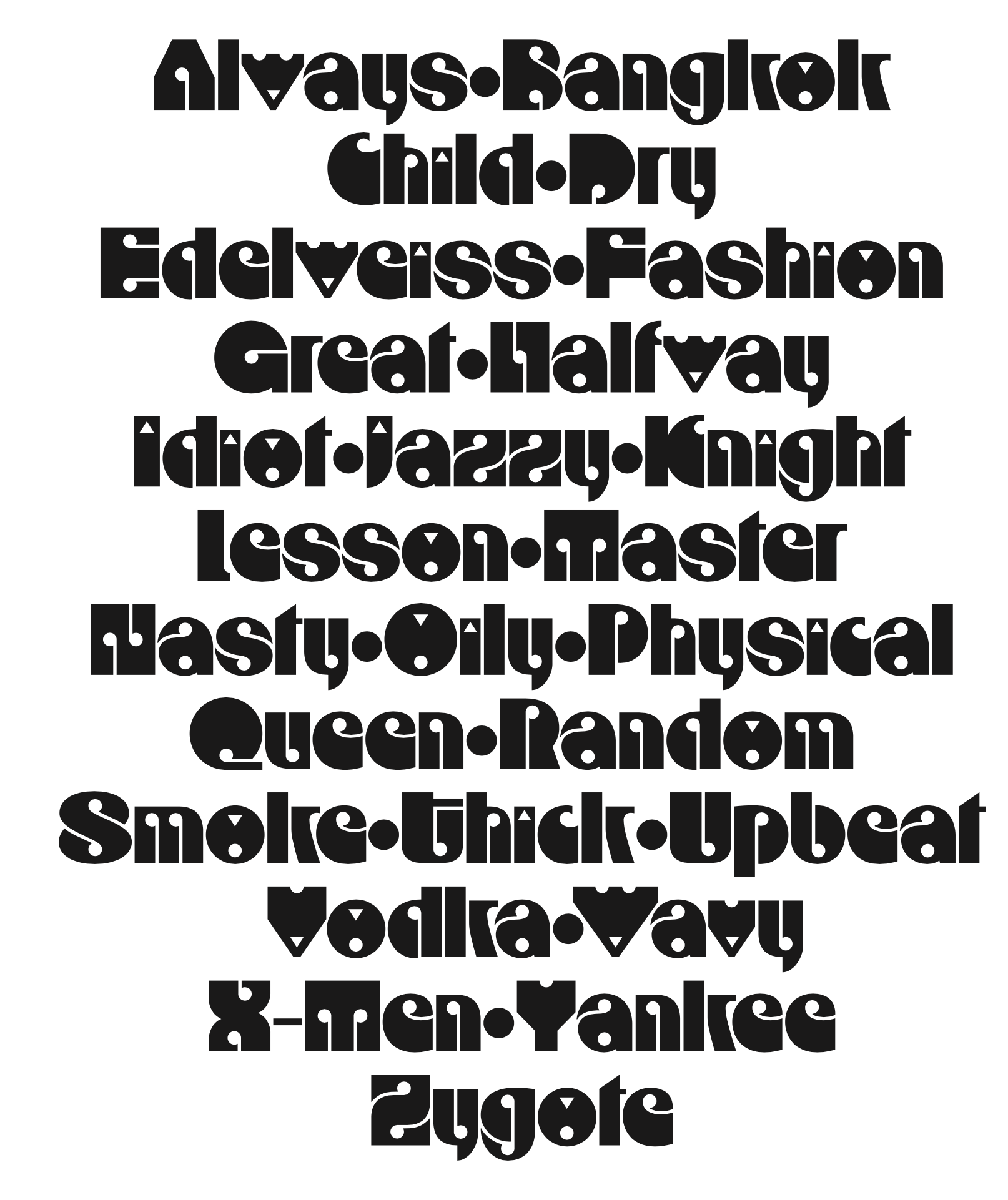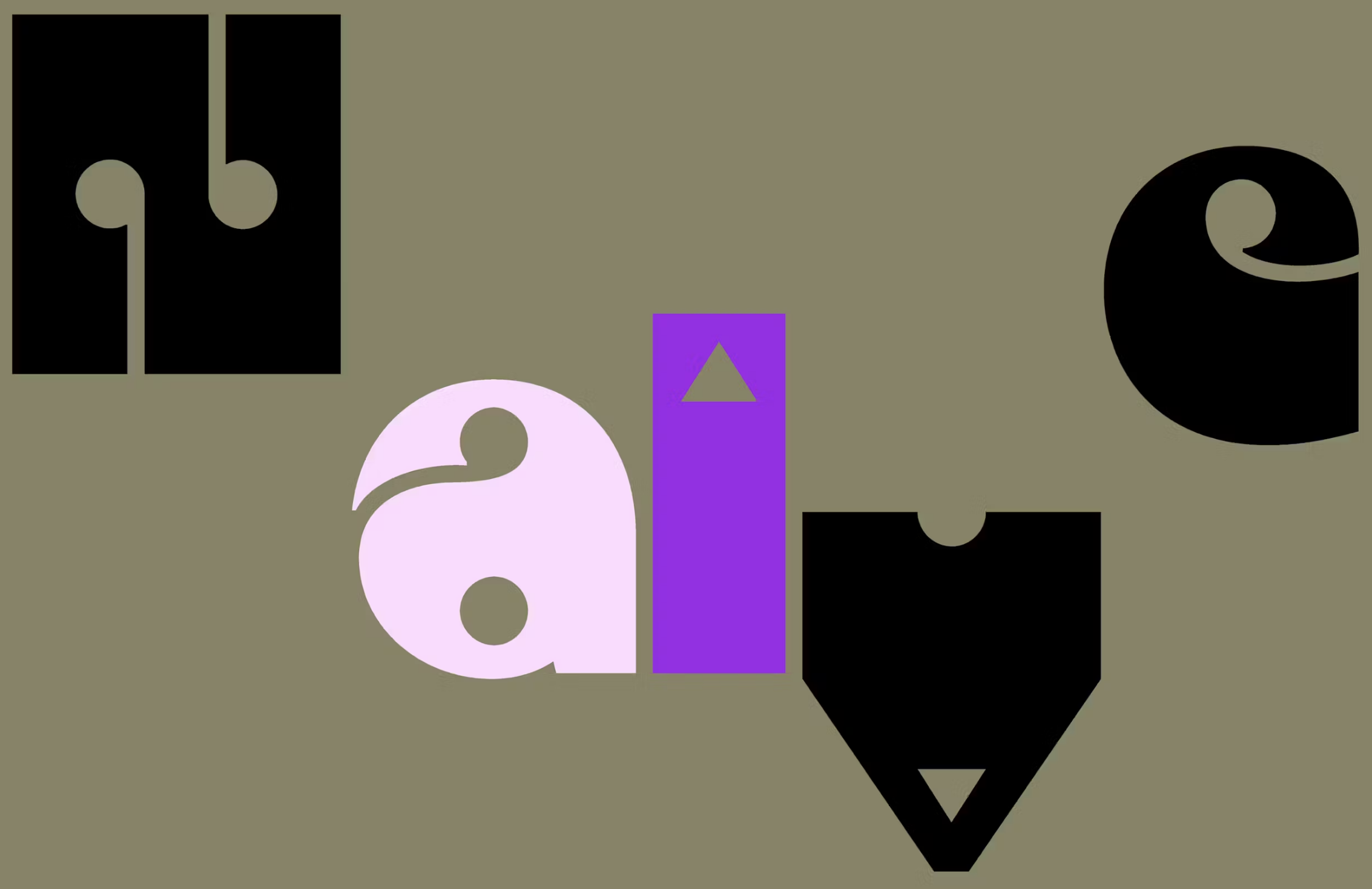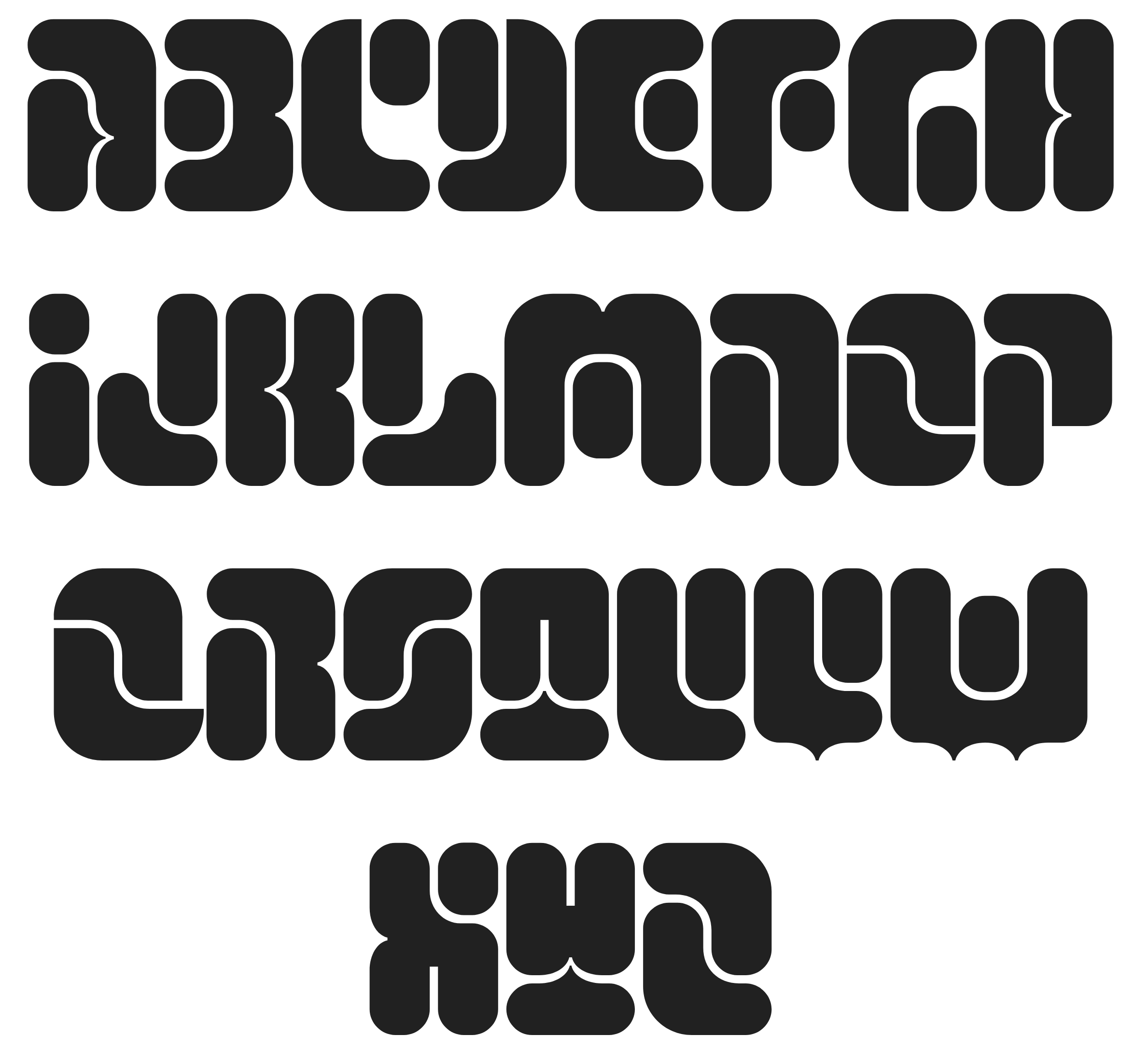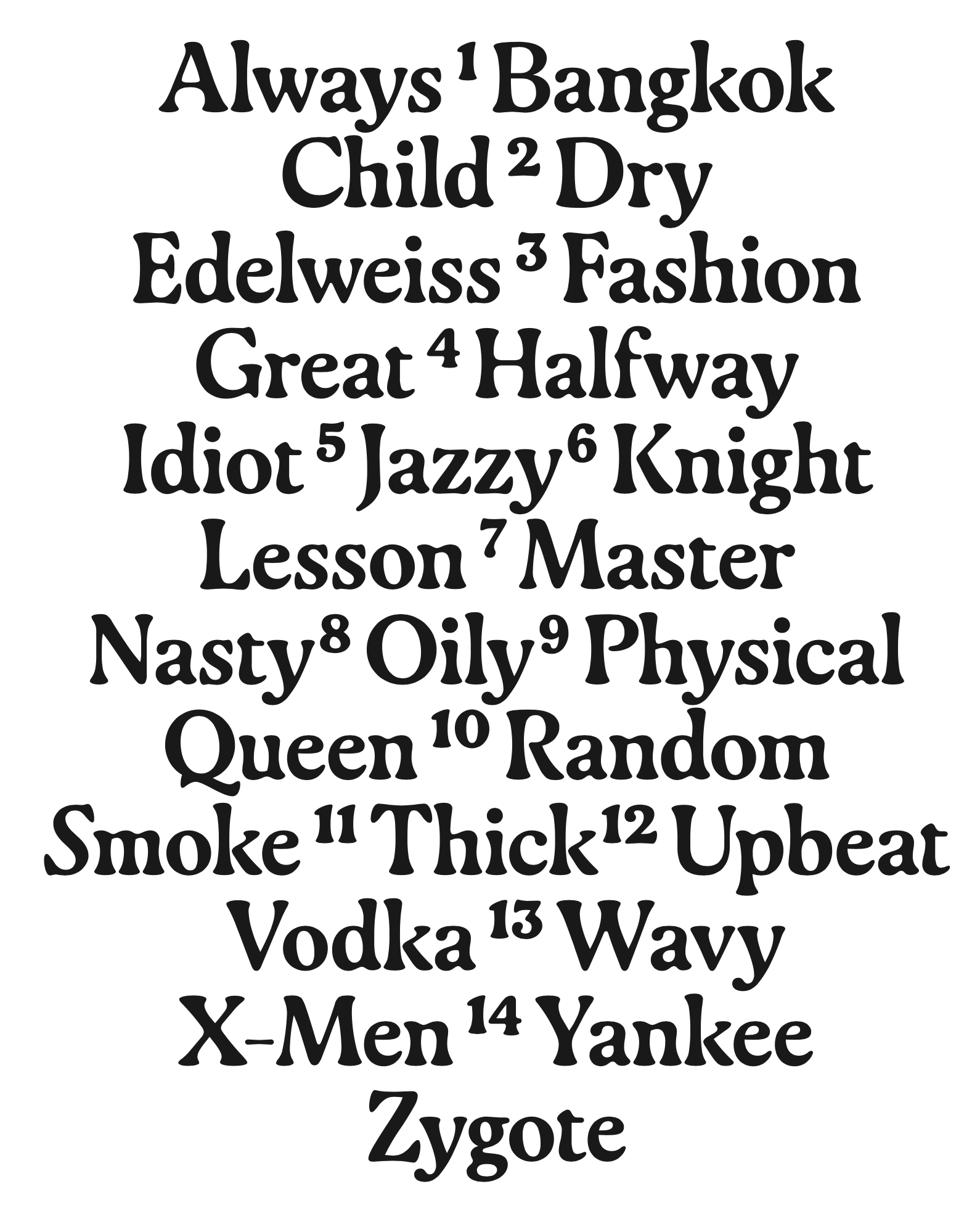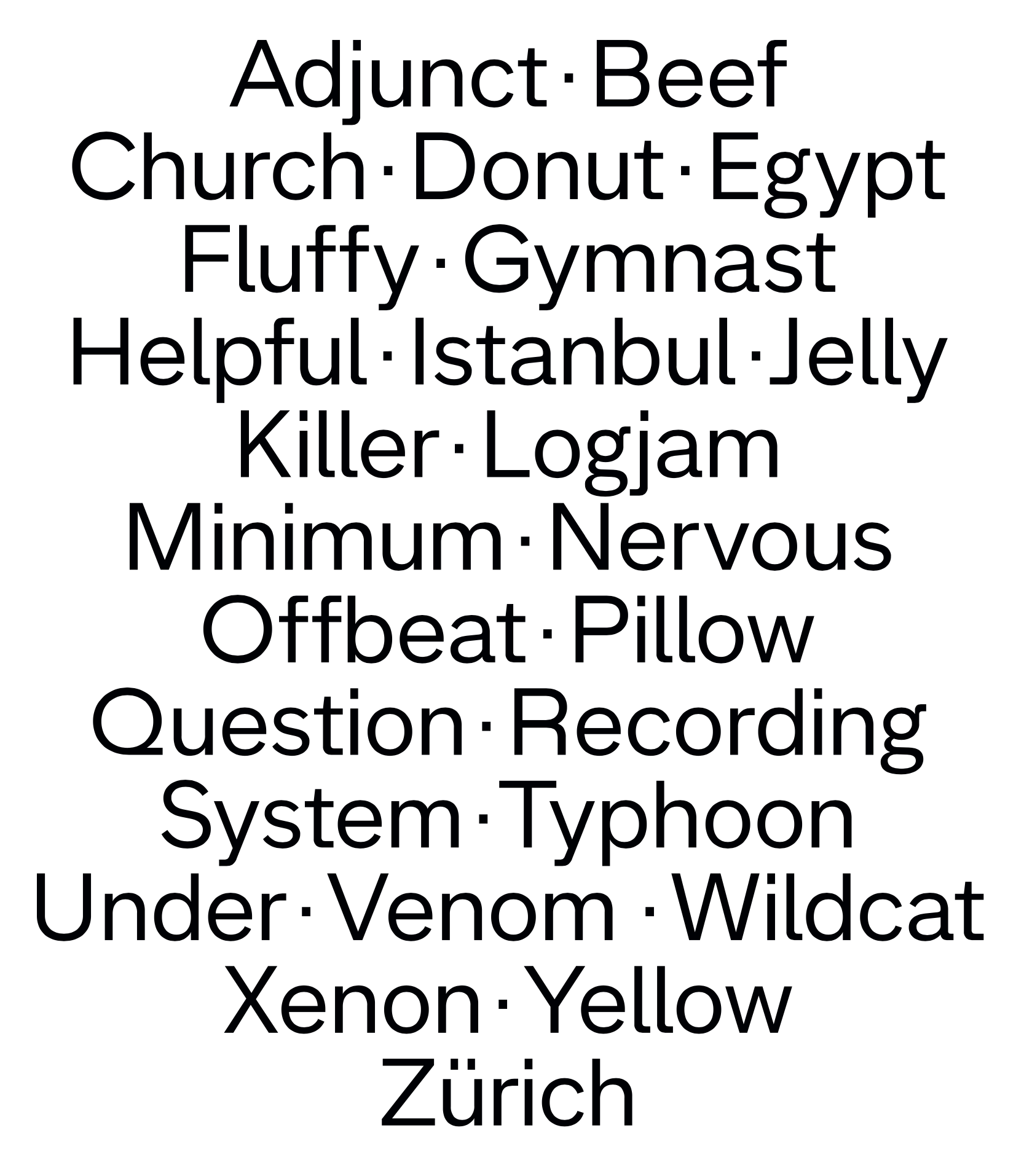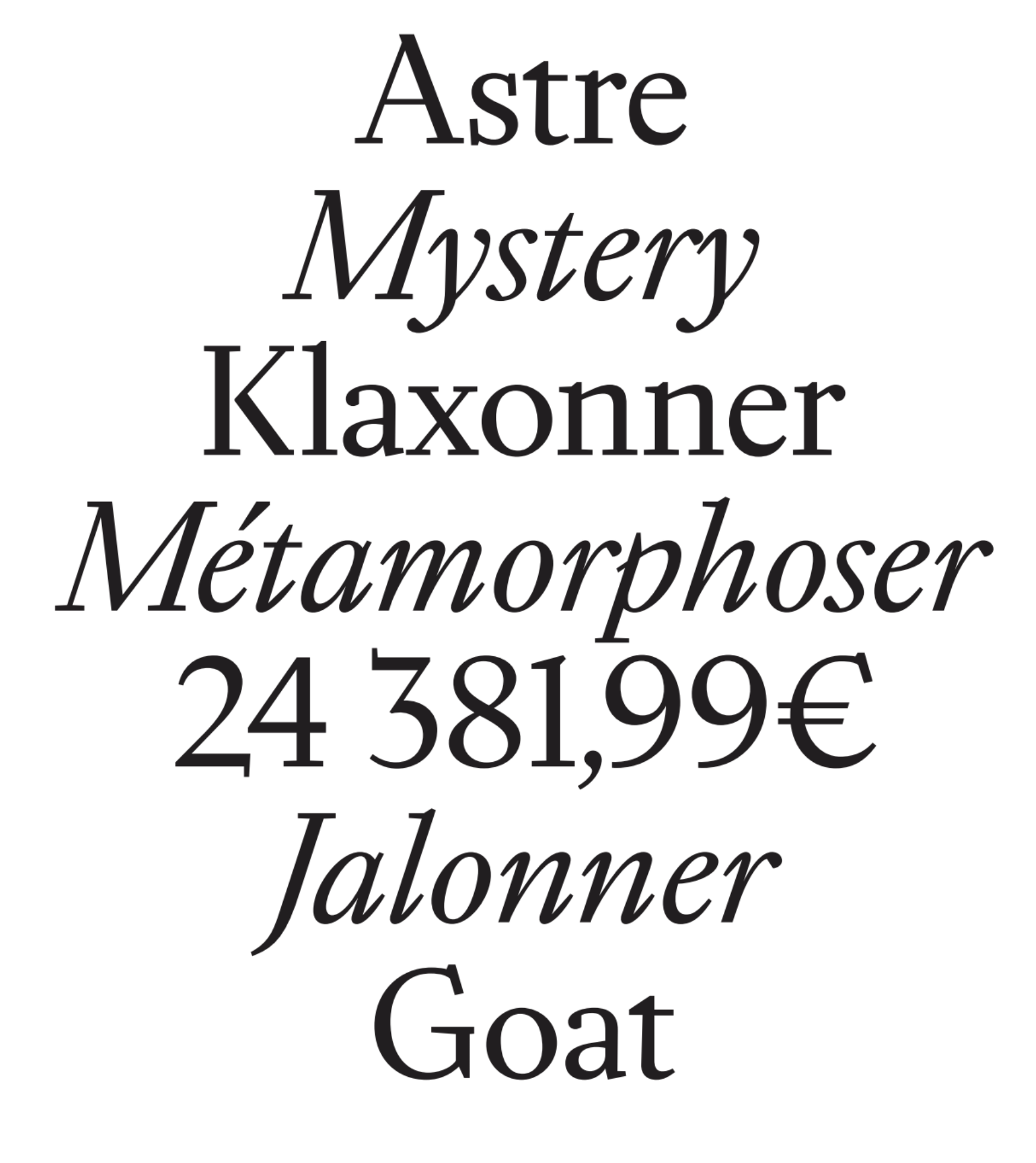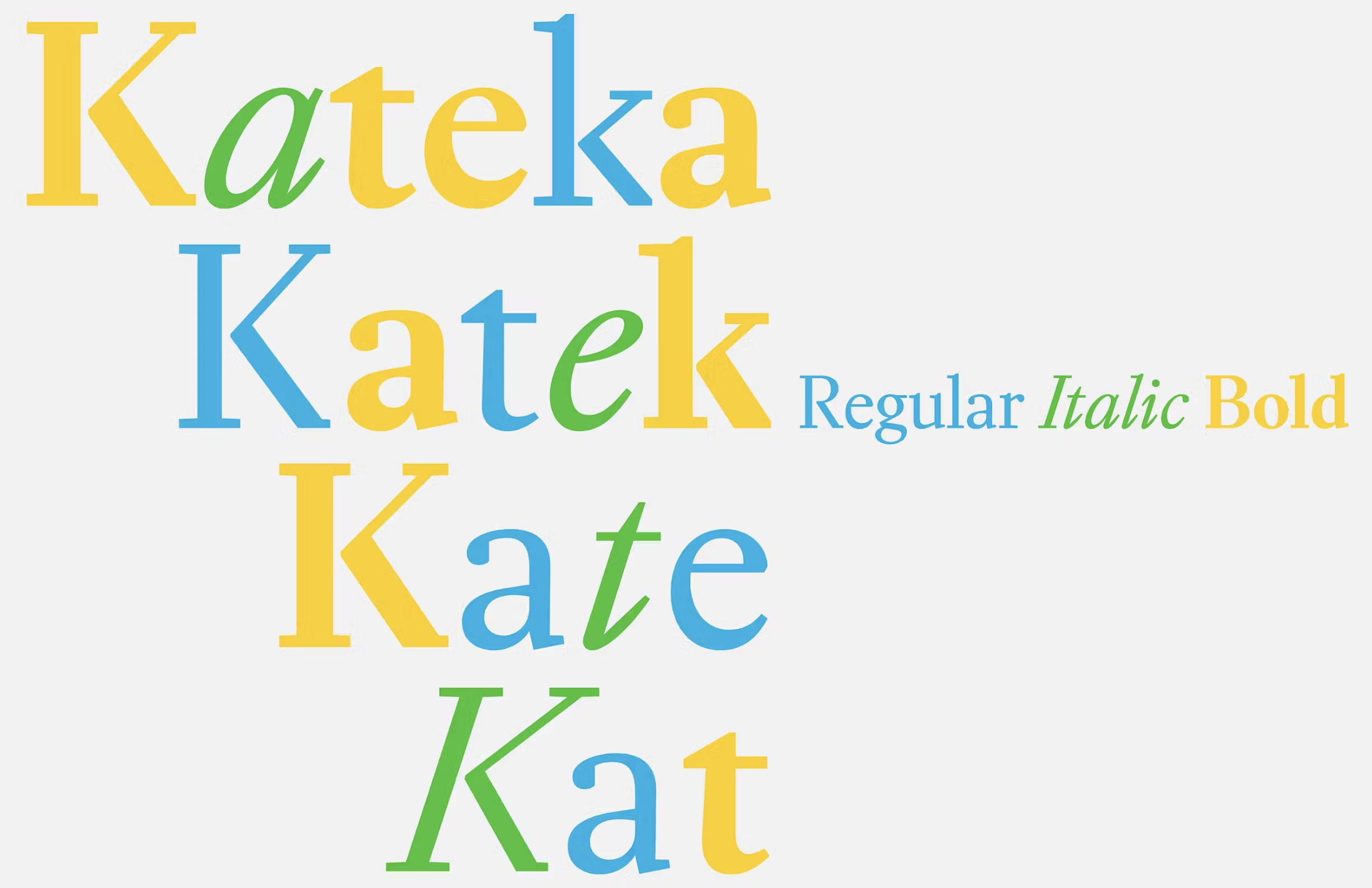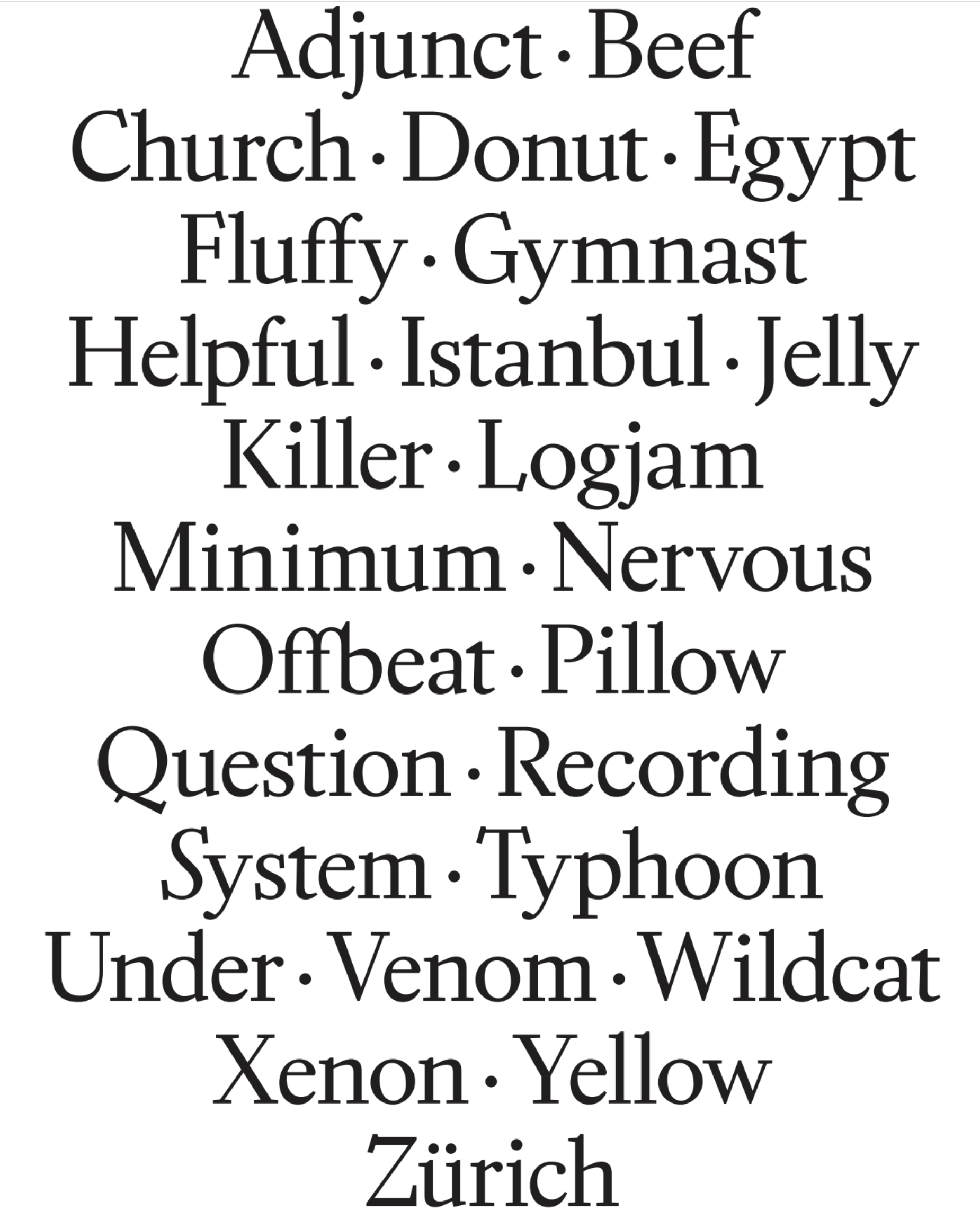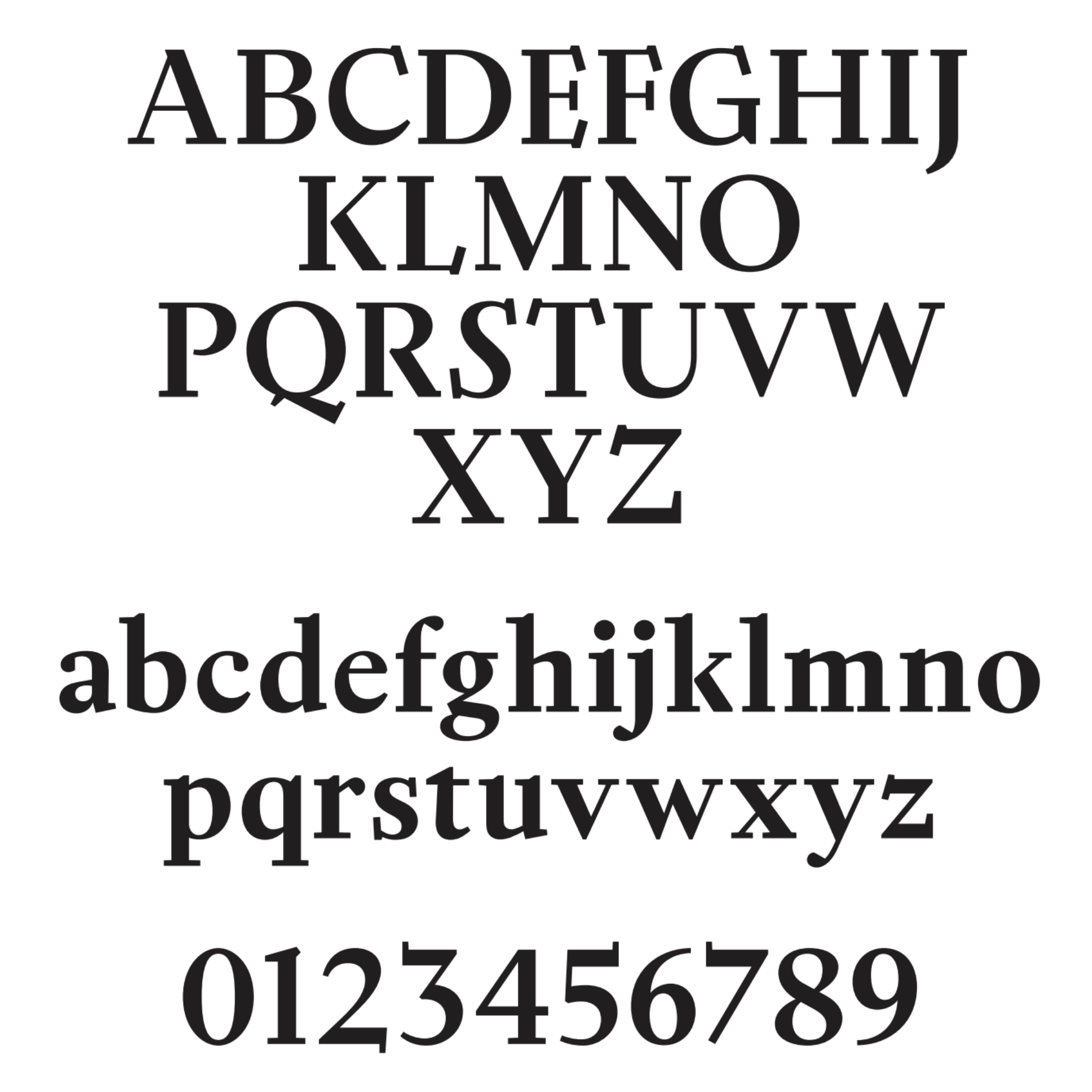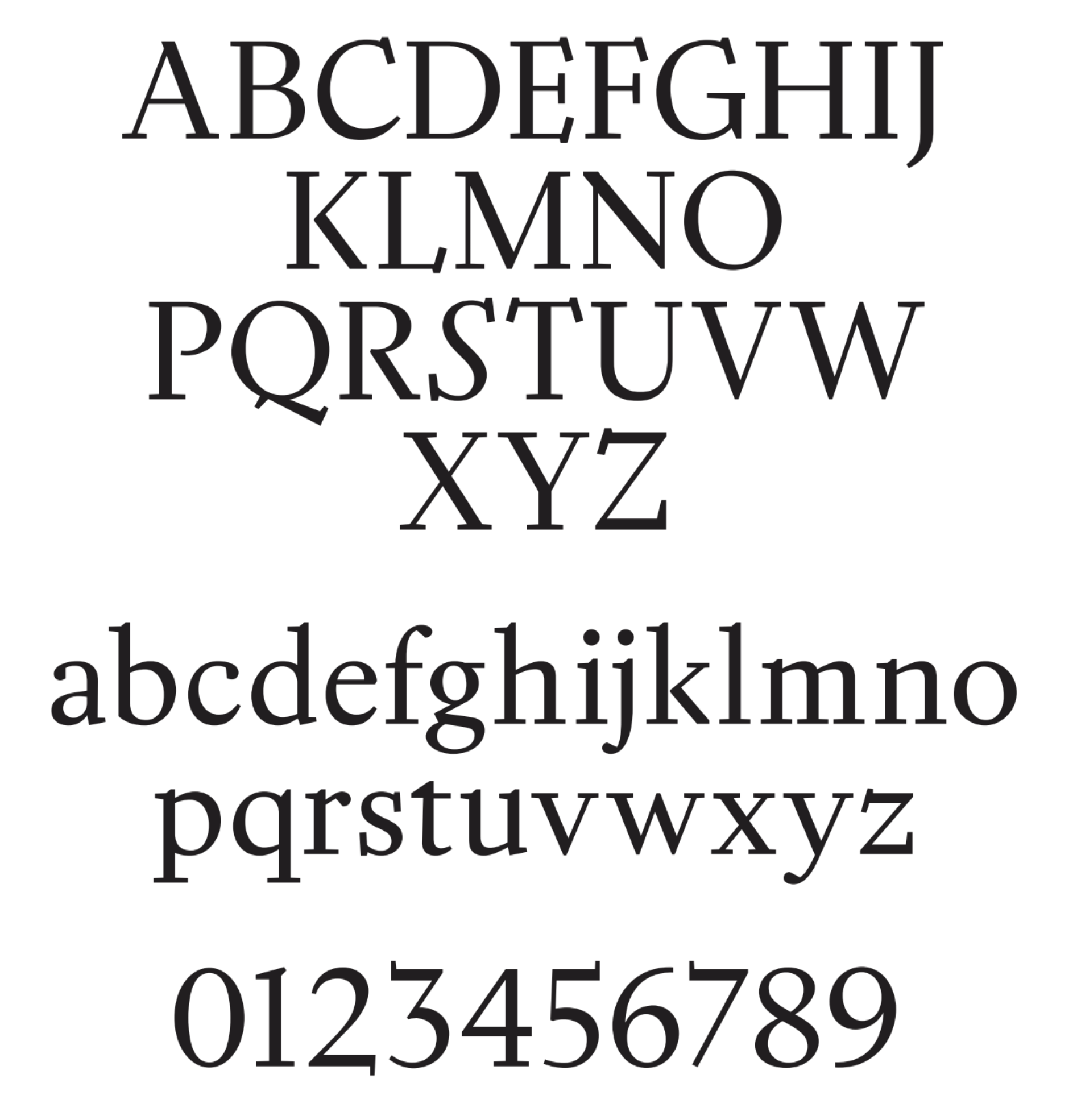
WrittenShape Type Foundry [Raphaël de la Morinerie]
WrittenShape is a Paris-based typefoundry set up by Raphaël de la Morinerie. It specializes in neutral modern sans serif typefaces, 1970s-style display typefaces and renaissance-era serif typefaces. As of 2025, its type catalog included
• Reptil (2025, Raphaël de la Morinerie and Ethan Nakache): a contemporary interpretation and extension of the psychedelic typeface Turtle (1971, Bob Newman ay Letraset). Interview in 2025 by Giacomo Checcucci.
• Naive (2023, Benoit Brun and Raphaël de la Morinerie): a free interpretation of the circle-based psychedelic font Bau, (Flemming Bau, 1970s).
• Gaya (2021, Raphaël de la Morinerie and Philipp Herrmann, consultant): a blurry typeface with warm organic shapes that offer comfort to the eye. This soft serif typeface was first designed at Out of the Dark.
• Adapt (2023, Raphaël de la Morinerie): in their words, a neo-grotesque typeface defined by its calm and meticulously crafted shapes, inspired by Swiss modernist typography, designed with everyday use and precise text compositions in mind.
• Craft (2023, Benoit Brun and Raphaël de la Morinerie): a narrow wood type.
• Kateka (Raphaël de la Morinerie): an original creation that borrows some baroque details from the characters of 18th-century Dutch typographer Johan Michaël Fleischmann, this full typeface family is ideal for classical texts with some embedded rigor.
Raphaël de la Morinerie is a French type and graphic designer who has a Bachelor's degree in graphic and type design from ENSAV La Cambre, Brussels (2019), and who is based in Paris.